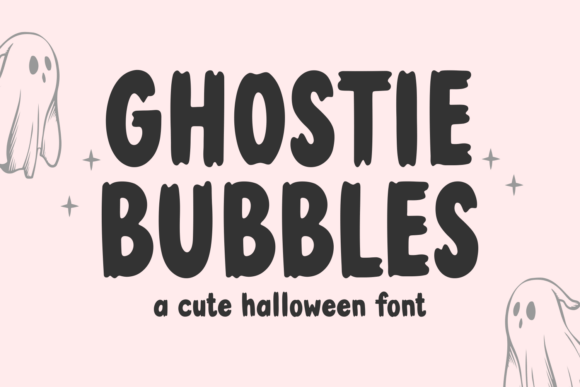
Introducing Ghostie Bubbles Font by Dreamink: The Perfect Halloween Display Font
Are you looking for a font that captures the magic of Halloween without being too scary? Look no further than the Ghostie Bubbles font by Dreamink. This cute Halloween display font combines spooky charm with bubbly fun, making it perfect for a variety of designs, from party invitations to children’s books.
The Characteristics of Ghostie Bubbles Font
Ghostie Bubbles is a typeface that is sure to delight with its rounded, playful letters and a touch of ghostly character. The font’s bold and whimsical style makes it especially great for kid-friendly Halloween themes and cheerful seasonal branding. Its unique blend of spooky and sweet elements ensures that it will add a delightful haunted touch to any project.
What Makes Ghostie Bubbles Font So Versatile?
One of the things that sets Ghostie Bubbles apart from other Halloween fonts is its versatility. This font is ideal for a wide range of designs, including:
- Party invitations: Create spooky yet fun invitations for Halloween parties that are sure to thrill kids and adults alike.
- Trick-or-treat bags: Add a personal touch to trick-or-treat bags with a custom label or sticker featuring the Ghostie Bubbles font.
- Children’s books: Bring the magic of Halloween to life in children’s books with a font that is both playful and spooky.
- Seasonal crafts: Use Ghostie Bubbles to add a personal touch to seasonal crafts, such as jack-o-lanterns, ghostly decorations, and more.
- Stickers: Create custom stickers featuring the Ghostie Bubbles font to add a fun and playful touch to Halloween treats and decorations.
- Social media posts: Use Ghostie Bubbles to create eye-catching social media posts that are sure to stand out in a crowded feed.
The Benefits of Using Ghostie Bubbles Font
There are many benefits to using the Ghostie Bubbles font in your designs. Some of the most significant advantages include:
- Unique and eye-catching: The Ghostie Bubbles font is sure to grab attention with its bold and whimsical style.
- Kid-friendly: This font is perfect for designs that are intended for children, as it is both playful and non-threatening.
- Versatile: Ghostie Bubbles can be used in a wide range of designs, from party invitations to social media posts.
- Easy to read: Despite its playful style, the Ghostie Bubbles font is easy to read, making it perfect for use in a variety of contexts.
How to Use Ghostie Bubbles Font in Your Designs
Using the Ghostie Bubbles font in your designs is easy. Here are a few tips to get you started:
- Experiment with different colors: The Ghostie Bubbles font looks great in a variety of colors, from bright and bold to pastel and soft.
- Pair with other fonts: Consider pairing Ghostie Bubbles with other fonts to create a unique and eye-catching design.
- Use in combination with images: The Ghostie Bubbles font looks great in combination with images, such as illustrations or photographs.
In conclusion, the Ghostie Bubbles font by Dreamink is a versatile and eye-catching font that is perfect for a wide range of Halloween designs. Its unique blend of spooky and sweet elements ensures that it will add a delightful haunted touch to any project. Whether you’re designing for festive Halloween events, spooky yet sweet merchandise, or playful seasonal promotions, the Ghostie Bubbles font is sure to be a hit.
Key Features of Ghostie Bubbles Font
- Cute Halloween display font: Ghostie Bubbles is a font that is specifically designed for use in Halloween-themed designs.
- Rounded, playful letters: The font features rounded, playful letters that are sure to delight.
- Touch of ghostly character: Ghostie Bubbles has a touch of ghostly character that adds to its spooky charm.
- Perfect for kid-friendly designs: This font is perfect for designs that are intended for children, as it is both playful and non-threatening.